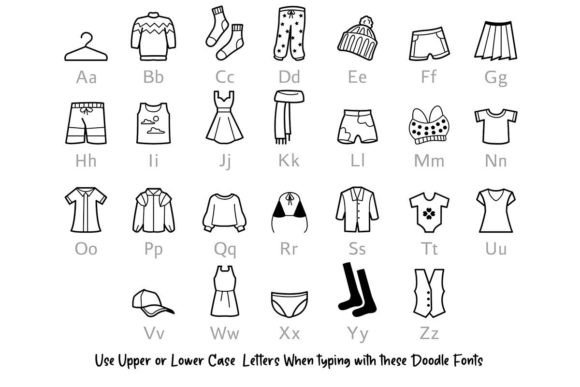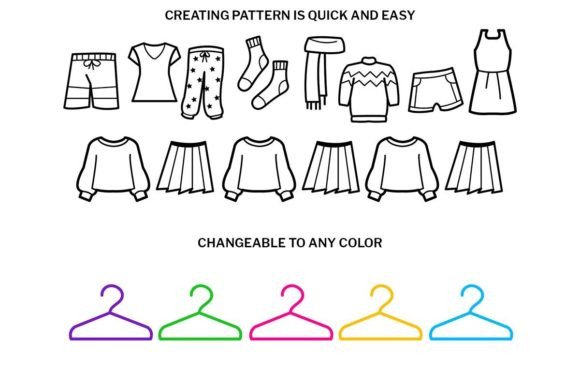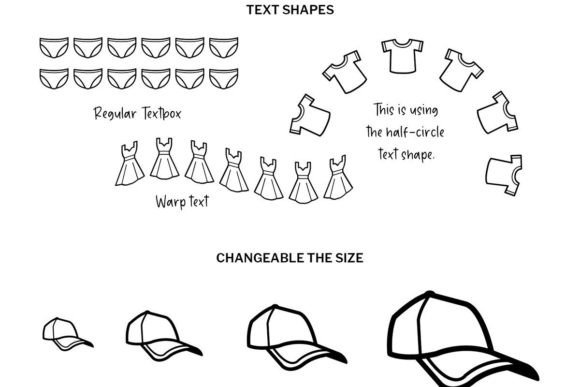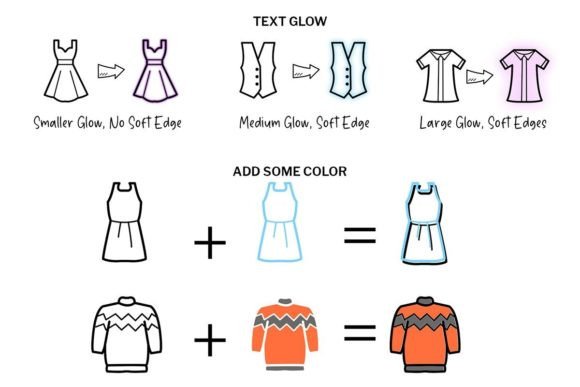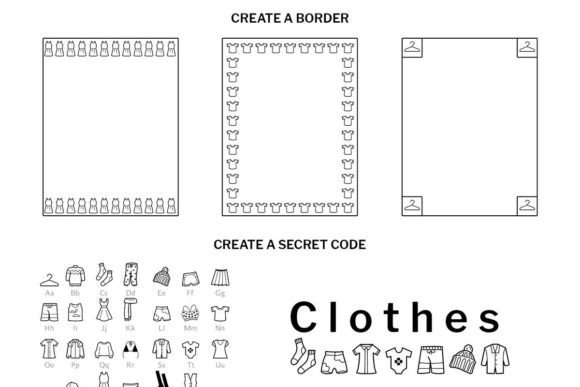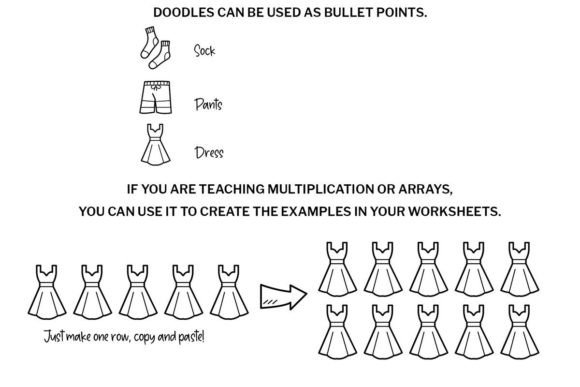
Introduction to Clothes Doodle Font
Have you ever been working on a creative project and wished you had the perfect visual element to bring it to life? For designers, this can be a frustrating moment, especially when trying to convey a theme or idea without the right visual aid. This is where the Clothes Doodle Font comes in – a fun and useful dingbats font that can add an extra layer of creativity to your projects.
With its high-quality design and transparent background, this font is a valuable resource for designers looking to add a unique touch to their work. Whether you’re working on a graphic design project, a website, or a social media campaign, the Clothes Doodle Font is sure to bring a smile to your face and a touch of whimsy to your design.
Key Features of Clothes Doodle Font
- Unique and creative doodle design elements for a variety of clothes, ideal for a design project
- High-quality vector files with transparent background, making it easy to use as a design resource
- Includes a range of clothes doodle designs in various resolutions, from 72 dpi to 300 dpi
- Can be easily scaled and resized without losing quality, making it ideal for use in various creative projects
- Perfect for use in digital design, print design, and web design, as well as in educational and personal projects
Honest Review: Clothes Doodle Font
I recently had the chance to work with the Clothes Doodle Font, and I must say it’s been a game-changer for my creative projects. The font is a design resource that offers high-quality, customizable doodles that can be used in a variety of ways.
One of the things that I love about the Clothes Doodle Font is its versatility. The font comes with a transparent background, making it easy to use on any design surface. ✨ It’s also incredibly easy to customize, with a range of options for color, size, and style.
- High-quality doodles that are perfect for creative projects
- Transparent background for easy use on any design surface
- Easy to customize with options for color, size, and style
- May not be suitable for formal or professional designs
- Limited options for more complex doodles or illustrations
Overall, I’m really impressed with the Clothes Doodle Font. It’s a great resource for designers looking to add a fun and creative touch to their projects. While it may have some limitations, I think it’s well worth the free download. ✨
How to Use Clothes Doodle Font
Tips for Getting the Most Out of Clothes Doodle Font
To get the most out of the Clothes Doodle Font, experiment with different font sizes, colors, and styles to create a unique look. Use the transparent background feature to create a seamless design. You can also combine the Clothes Doodle Font with other design elements to create a cohesive and engaging visual identity.
The Clothes Doodle Font is perfect for a wide range of creative projects, including children’s book illustrations, fashion designs, and social media graphics. Its playful and whimsical style makes it a great choice for brands and designers looking to add a touch of fun and personality to their designs.